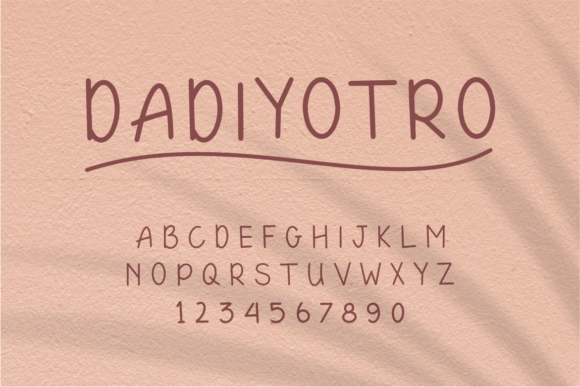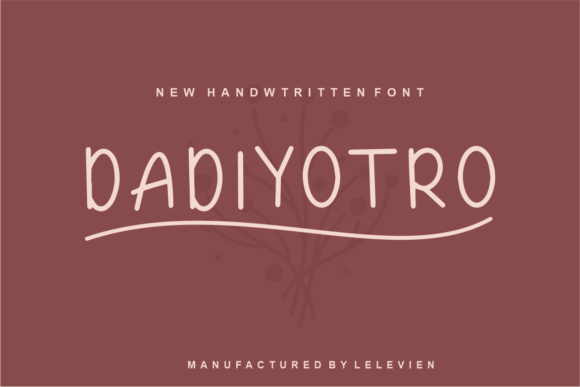
Dadiyotro Font
About Dadiyotro Font
The Dadiyotro Font Download is a sweet and friendly handwritten script designed to bring warmth, creativity, and personality into your projects. With its natural and unique strokes, Dadiyotro captures the charm of real handwriting, making it ideal for designs that need a personal, heartfelt touch.
Whether you’re creating wedding invitations, greeting cards, quotes, or branding materials, this font adapts seamlessly and adds character to any layout. Its versatile design makes it suitable for both casual and professional use, ensuring your work looks approachable while remaining stylish and polished.
Features of Dadiyotro Font
• Sweet and friendly handwritten style with natural flow
• Unique letterforms that make every design stand out
• Full character set including uppercase, lowercase, numerals, and punctuation
• High readability across print, digital, and craft projects
• Charming versatility for both personal and commercial uses
Best Uses for Dadiyotro Font
The Dadiyotro Font Download is versatile and works beautifully in many creative projects, such as:
• Invitations and stationery – Perfect for weddings, birthdays, and events
• Greeting cards and thank-you notes – Add a heartfelt handwritten touch
• Quotes and wall art – Transform inspirational words into stylish visuals
• Logos and branding – Great for lifestyle, boutique, or artisan businesses
• Product packaging – Enhance labels for handmade goods, food, or beauty items
• Social media graphics – Create posts that feel approachable and engaging
• DIY crafts and projects – Add warmth and authenticity to handmade designs
Why Choose Dadiyotro Font
The Dadiyotro Font Download is loved by designers because it combines natural beauty with usability. Unlike overly decorative fonts that may sacrifice readability, Dadiyotro strikes the right balance between charm and clarity. Its handwritten style looks authentic, while its careful detailing ensures your text remains professional and polished.
This font works across multiple design contexts, giving you the freedom to use it in personal crafts, digital branding, or professional layouts. Its versatility and unique style make it a valuable addition to any font collection.
The Dadiyotro Font Download is a sweet, friendly handwritten script that adds natural beauty and charm to your work. With its unique letterforms, versatile usability, and polished readability, it’s perfect for invitations, quotes, logos, packaging, and more.